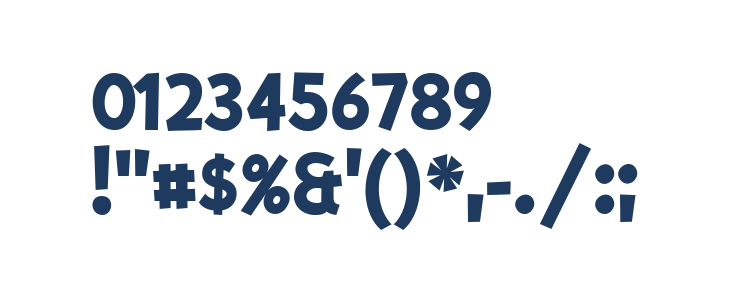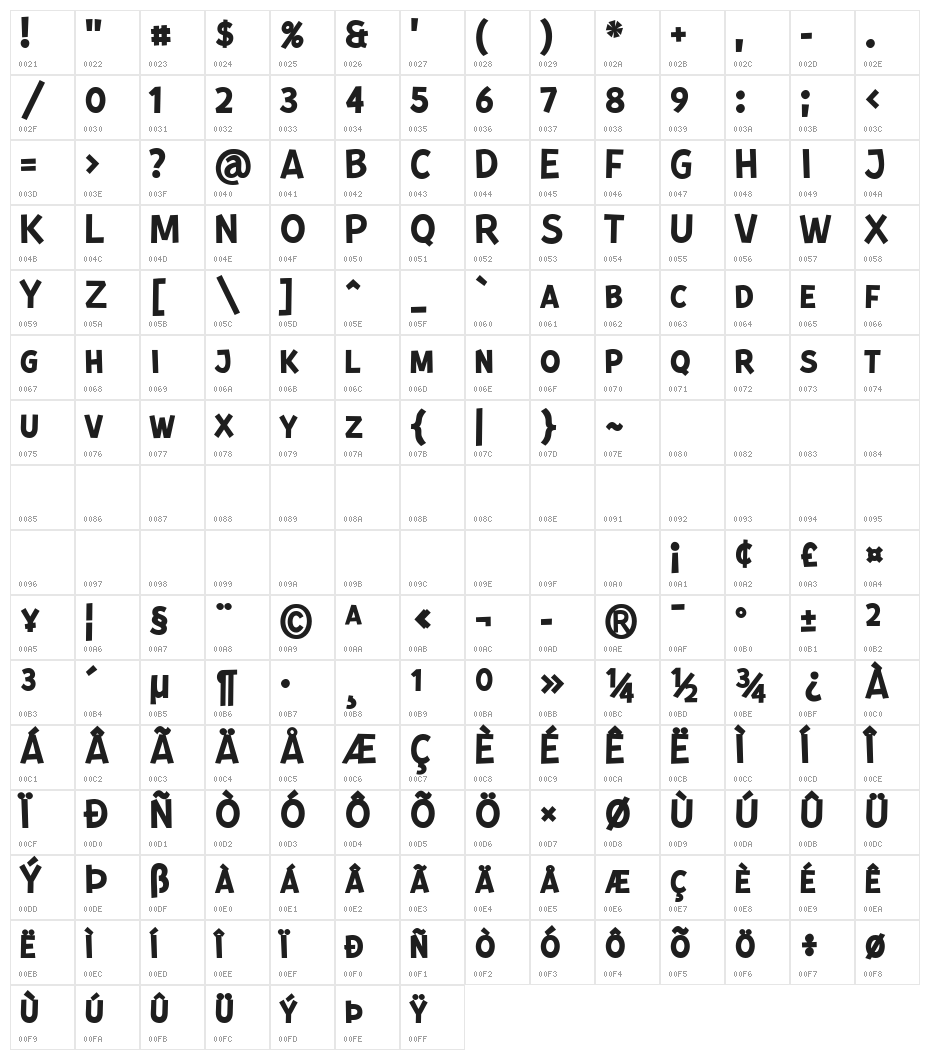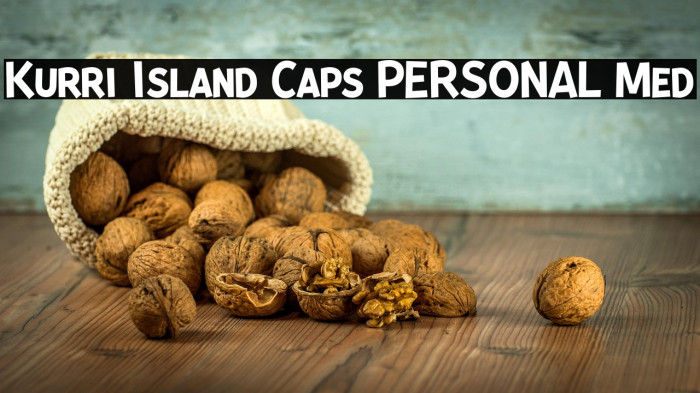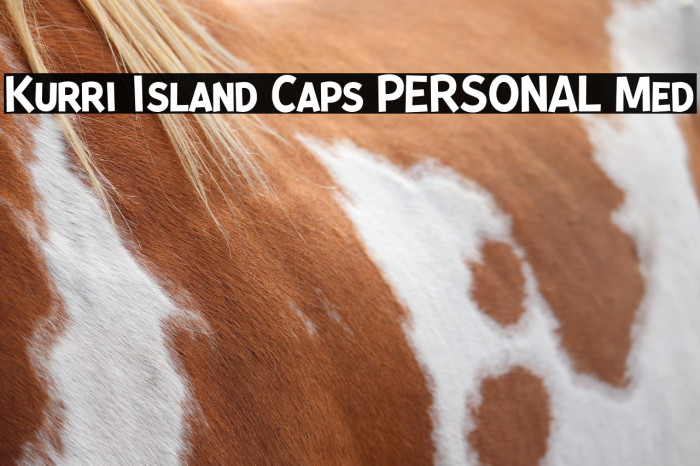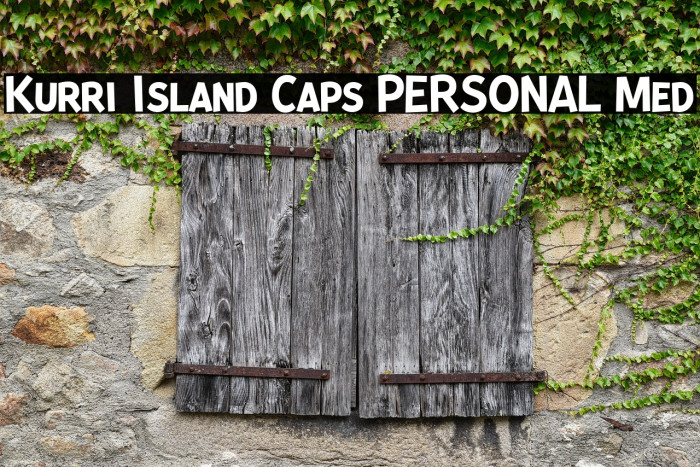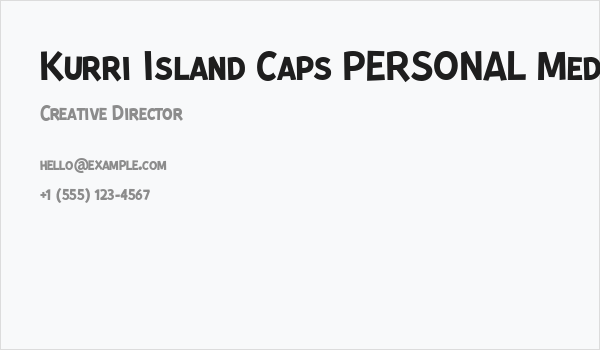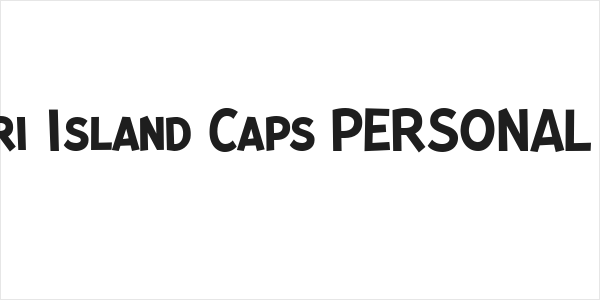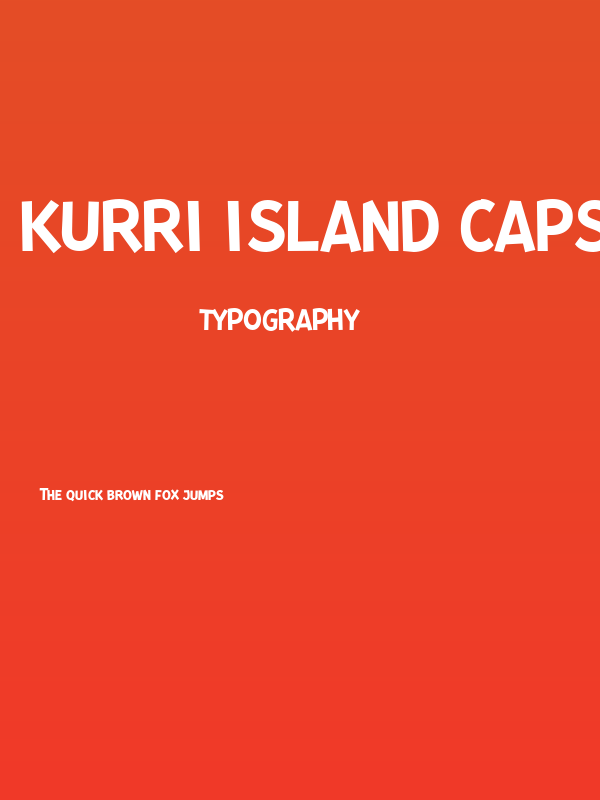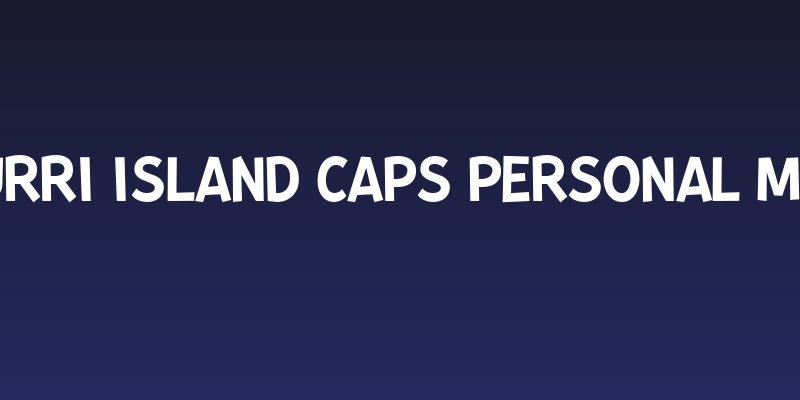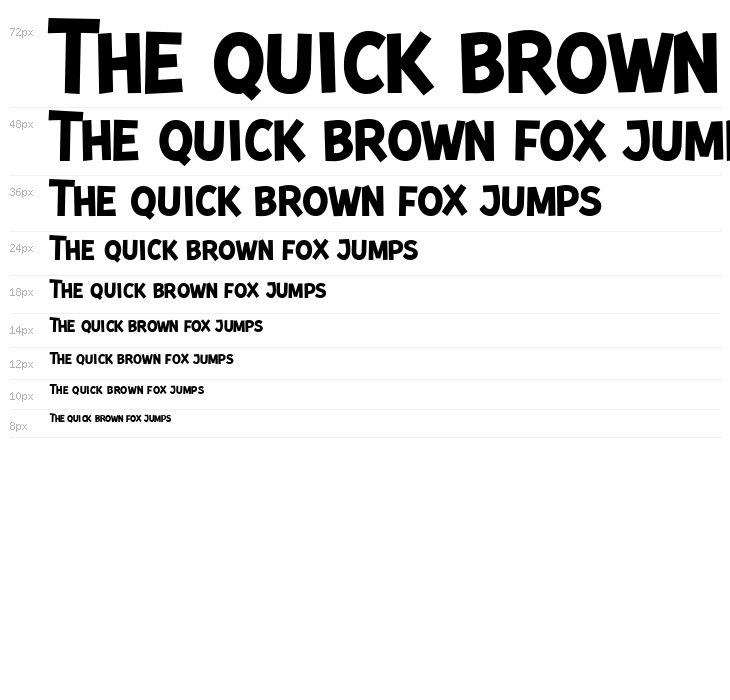
Kurri Island Caps PERSONAL Med Font
Kurri Island Caps PERSONAL Med Description
This font features bold, playful characters with a whimsical and energetic style. The letters are slightly irregular, giving them a hand-drawn appearance that adds a sense of fun and creativity. The uppercase letters are prominent and eye-catching, while the numbers and special characters maintain the same lively aesthetic. The overall design is suitable for projects that require a touch of personality and flair, making it ideal for creative and informal contexts.
| Overall Style | Playful, Creative |
| Proposed Projects | Ideal for children's books, playful branding, posters, and creative invitations. |